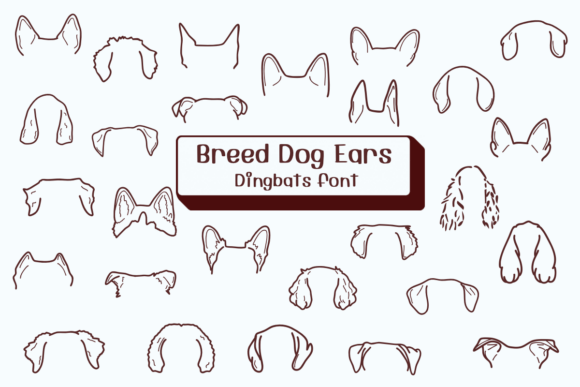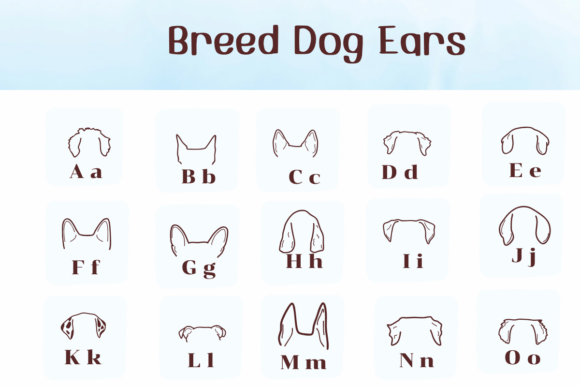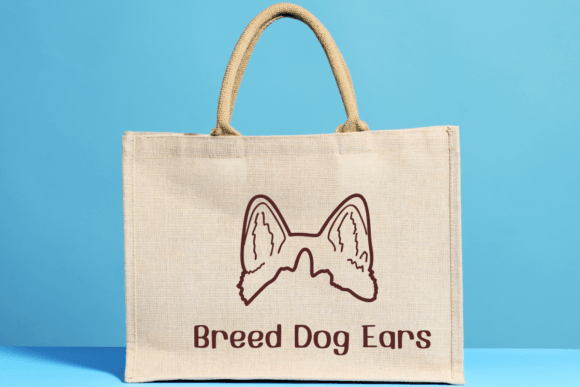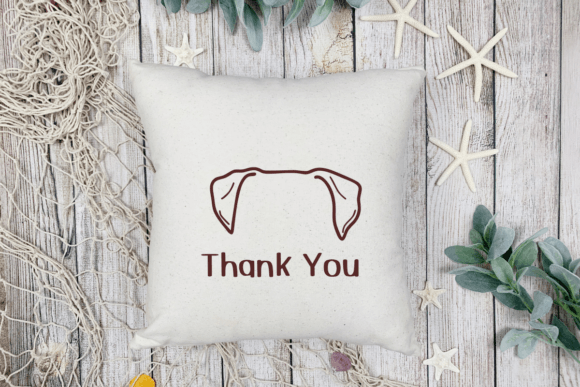
Breed Dog Ears Font
“Breed Dog Ears” is a fun dingbat font featuring cute dog ears as symbols. It’s perfect for adding a playful, dog-inspired touch to your designs!